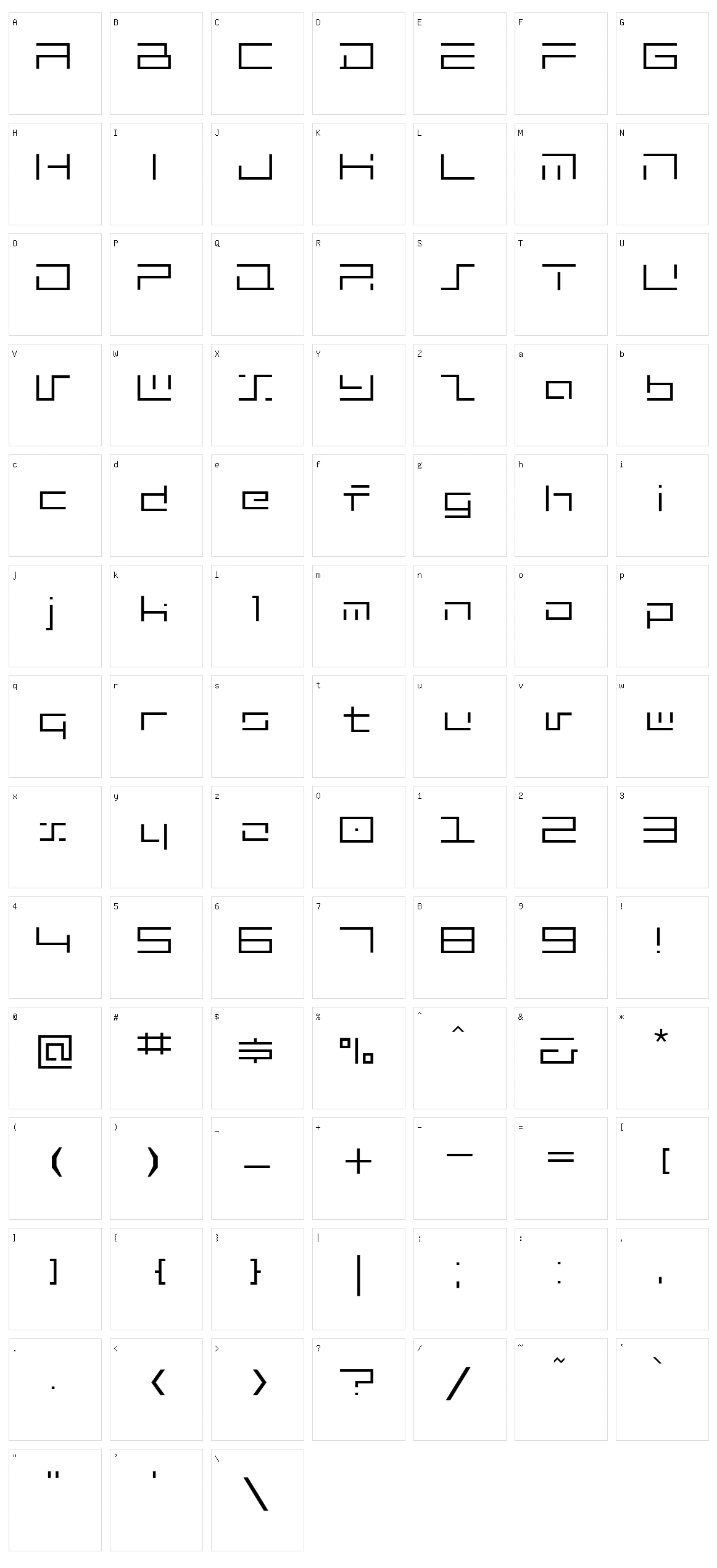
The free font Minimalhard is carefully designed by Akihiro, showcasing a thoughtful balance of creativity and usability and falls under the Square font style. When you download the ZIP file, it contains only 11.29 KB of font files, making it lightweight and quick to download. Please review the license details below to understand permitted usage and distribution rights. If license information is not available, we recommend using this font for personal projects only or contacting the author directly for commercial usage permissions.